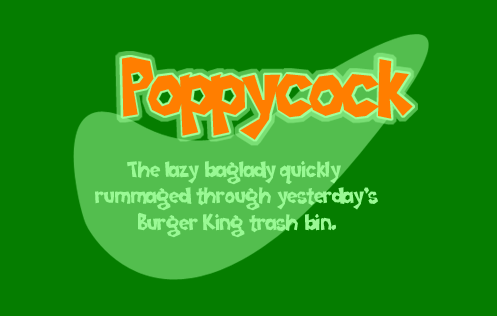
Poppycock
If anyone in the world has a use for fun fonts, it is professional clowns. I get a lot of requests from pro clowns asking for a font suitable for their business cards and advertisements. So, Bongo, Dr. Laffy, and The Clown Formerly Known As Reggie, this font is for you.